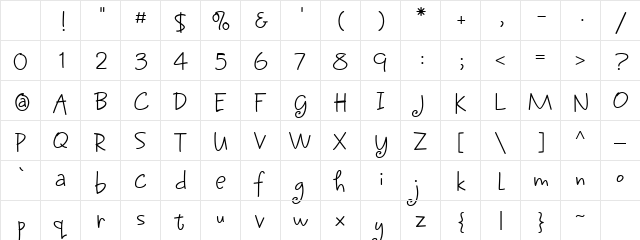
Sunnydale is a composed and adaptable typeface that performs quietly and consistently across a wide range of design contexts.
Pro Tip: Use Sunnydale in both headline and body roles to test its range before committing to a single application.